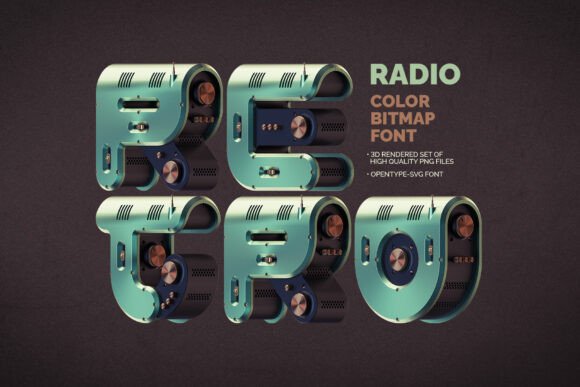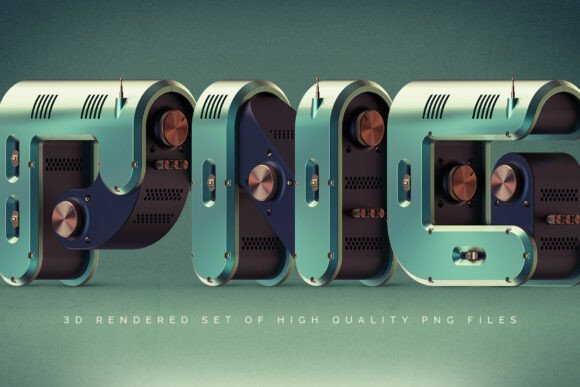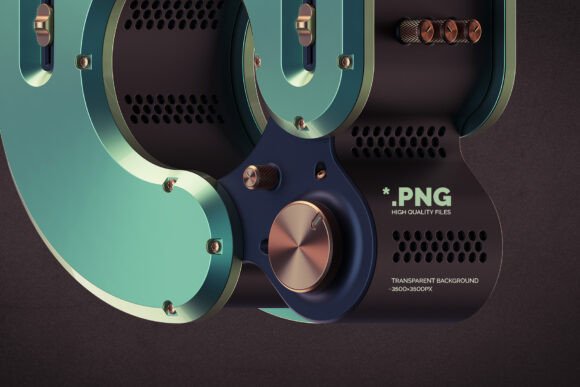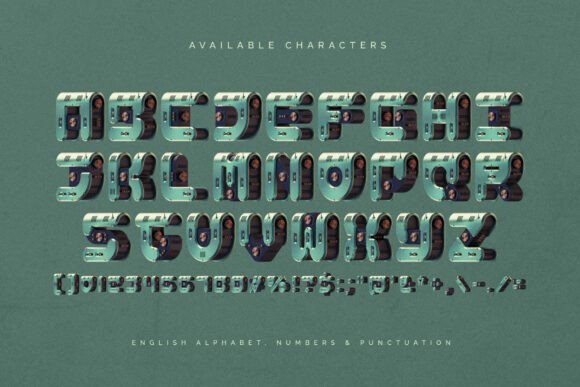
Introduction to Retro Radio Font
Introducing a Retro Radio color bitmap font.
This 3D rendered type is inspired by vintage devices, like radios and amplifiers, with letters featuring metallic bolts, knobs, and faders Perfect for retro tech designs, posters, and creative digital projects.
Key Features of Retro Radio Font